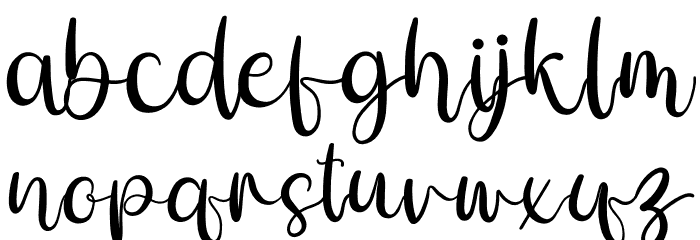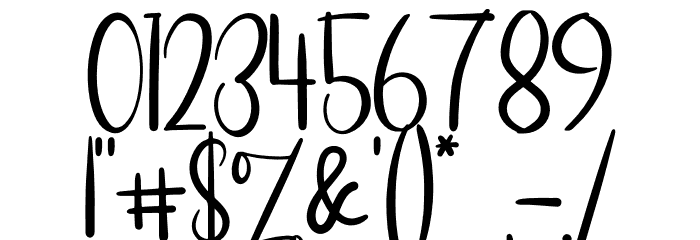
Shitti Beauty Font
This font exudes a playful and artistic flair, characterized by its handwritten style with a modern twist. The uppercase letters are tall and slightly narrow, with a whimsical touch that adds personality. The lowercase letters flow smoothly with a casual elegance, featuring loops and curves that enhance its handwritten appeal. Numbers are consistent with the overall style, maintaining the playful yet sophisticated look. Special characters are creatively designed, fitting seamlessly with the rest of the font. This font is perfect for projects that require a personal and artistic touch, such as invitations, greeting cards, and creative branding.
A playful, handwritten font with a modern and artistic flair.
- Font: Shitti Beauty
- Proposed Projects: Ideal for invitations, greeting cards, creative branding, and artistic designs.
- Category: Handwritten
- Use Case: Logos, Headlines, Artistic projects